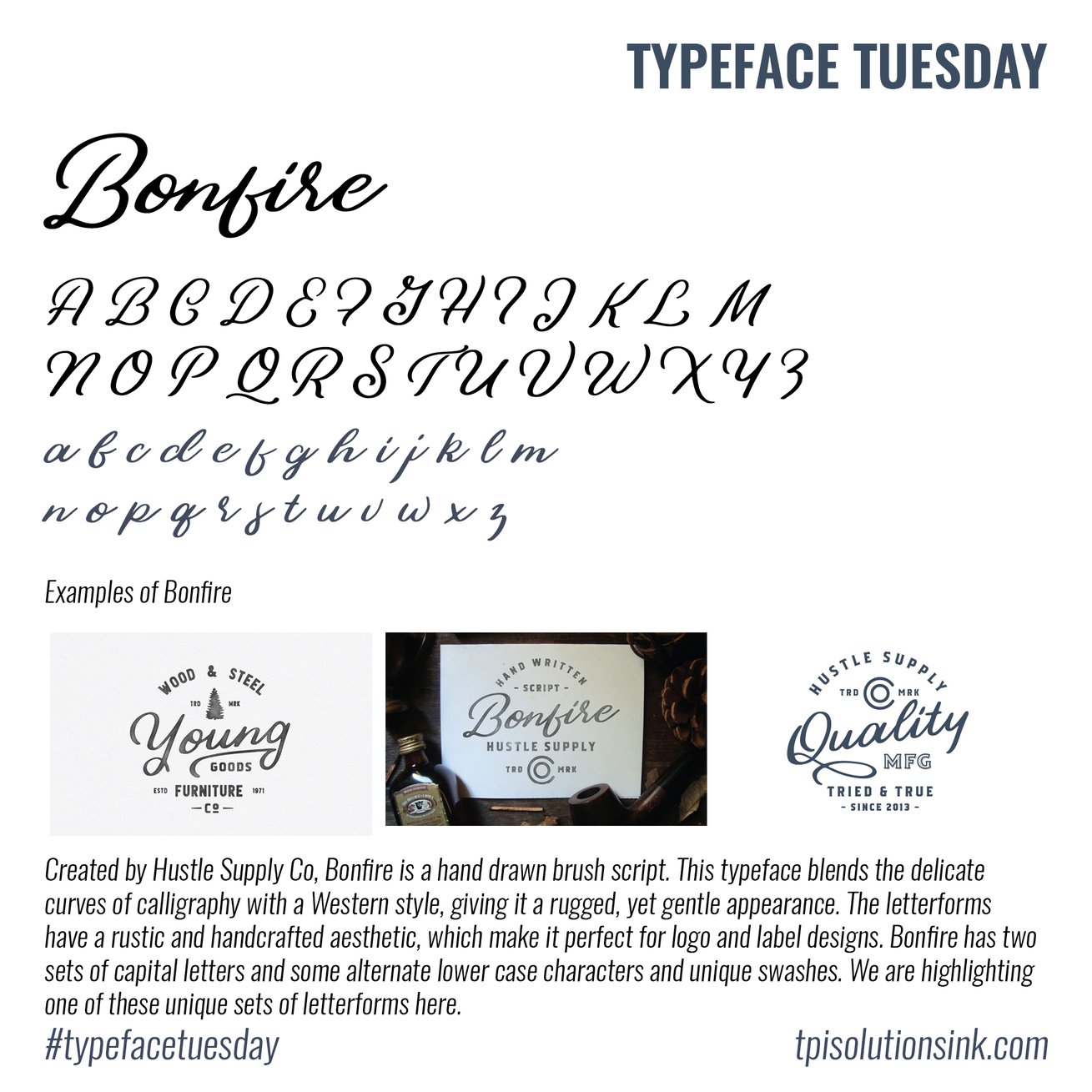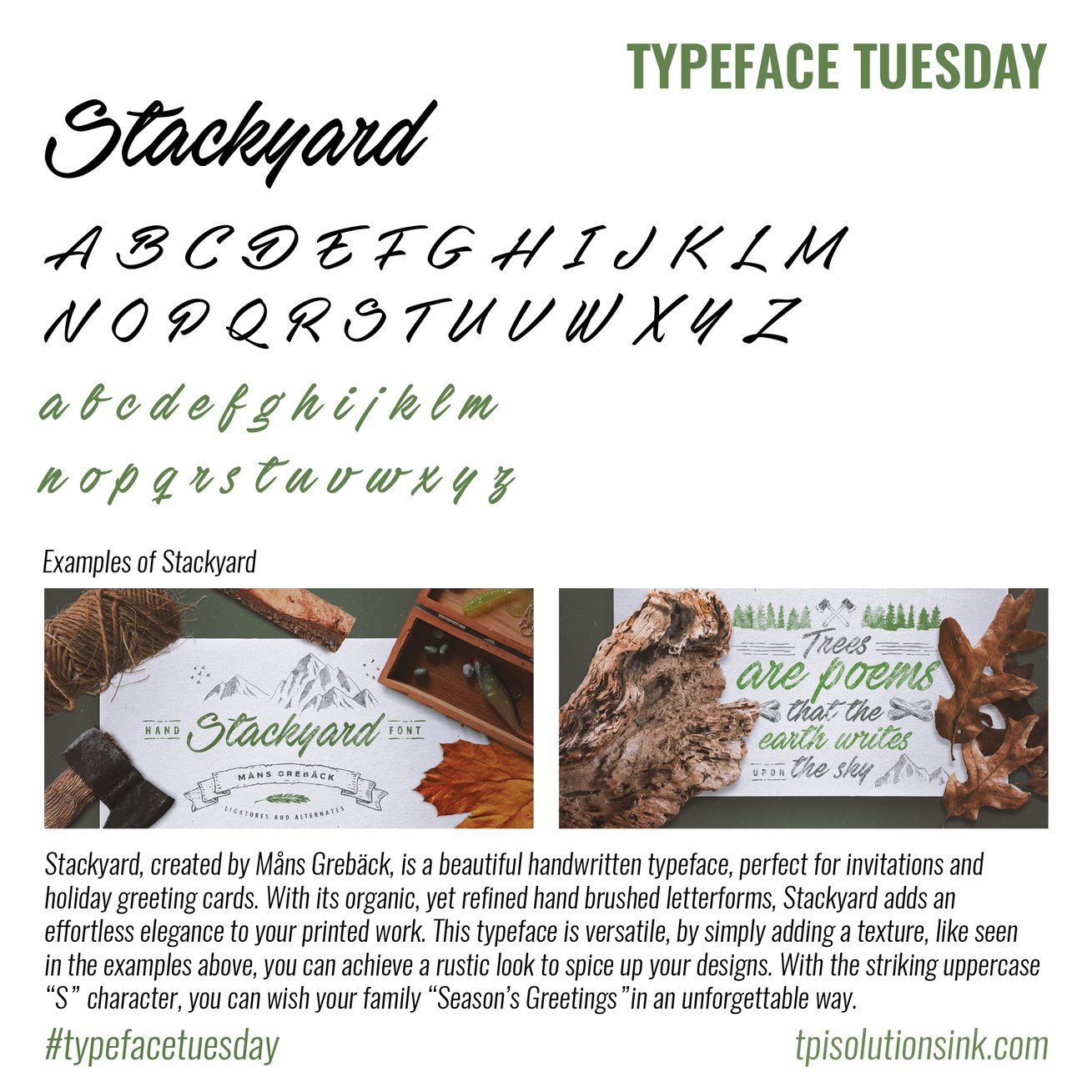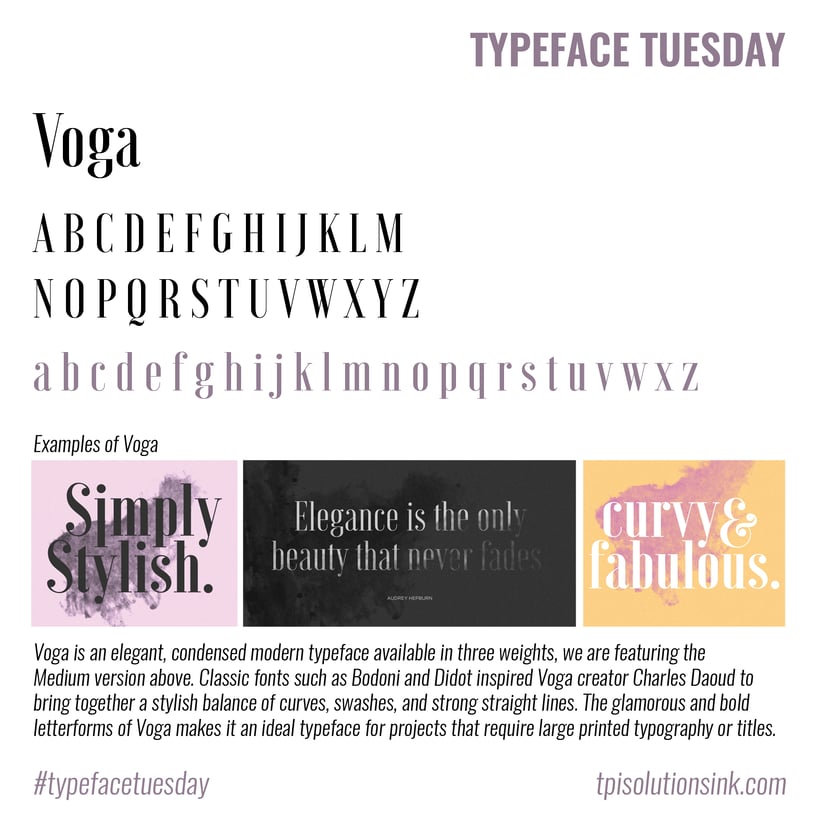
title: Typeface Tuesday Recap – November 2017
# Typeface Tuesday Recap – November 2017
We've got some lovely handcrafted typefaces featured in this recap!